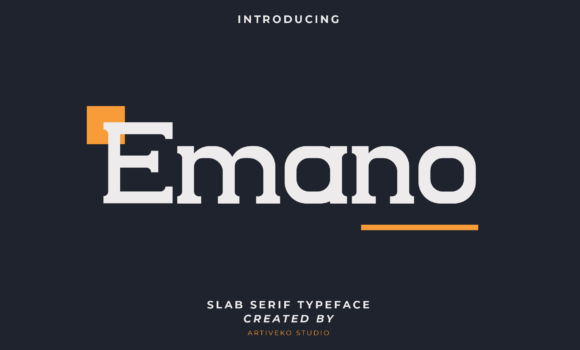
Emano Font – Free Download Introduction to Emano Font Emano is a clean and contemporary slab serif font designed for designers who value simplicity and impact. 📸 Preview Gallery 6 images 📌 Product Name Emano Font 👤 Author Artiveko 📂